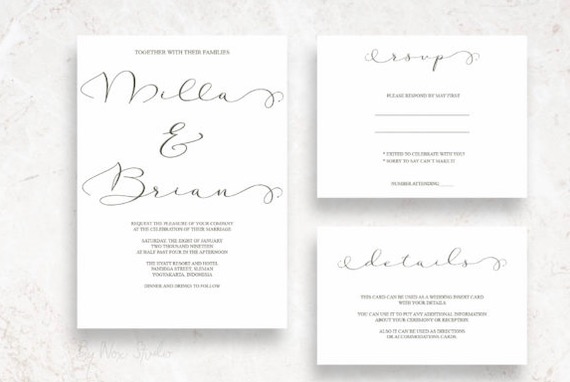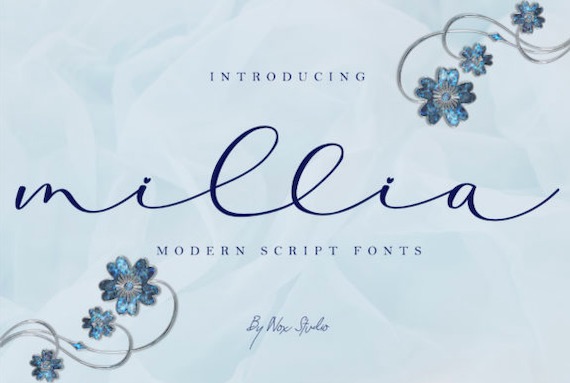
Millia Font is a modern classy and dazzling handwritten script typeface. This font is neatly crafted and highly detailed. Whatever the topic, this font will be a wonderful asset to your font library, as it has the potential to enhance any creation. This font is PUA encoded which means you can access all glyphs and swashes with ease!
Millia Handwritten Font
Font family: Millia Font